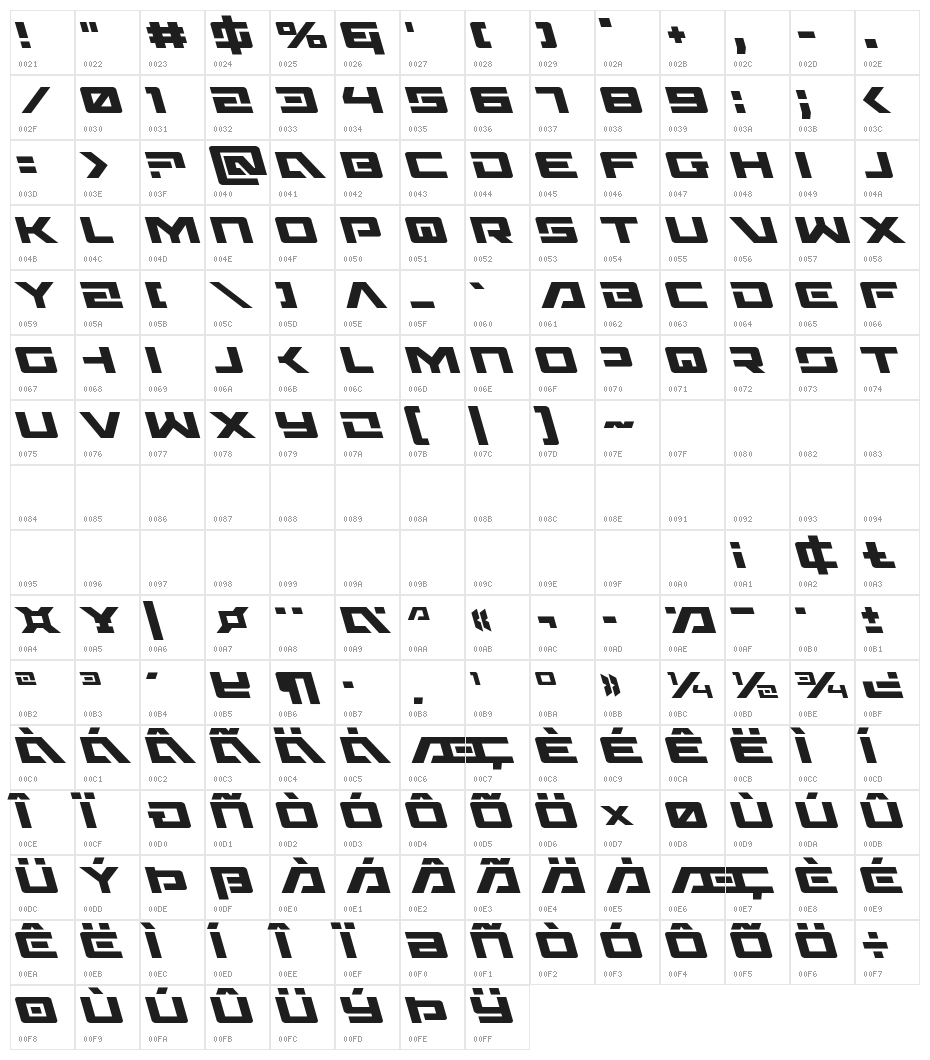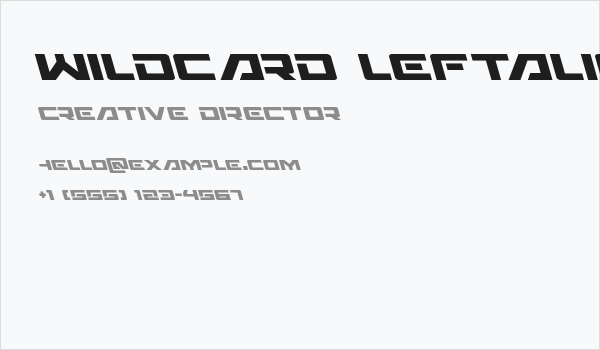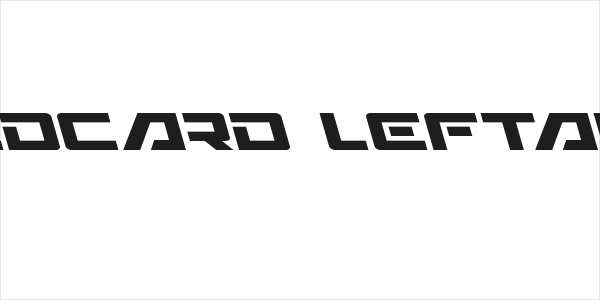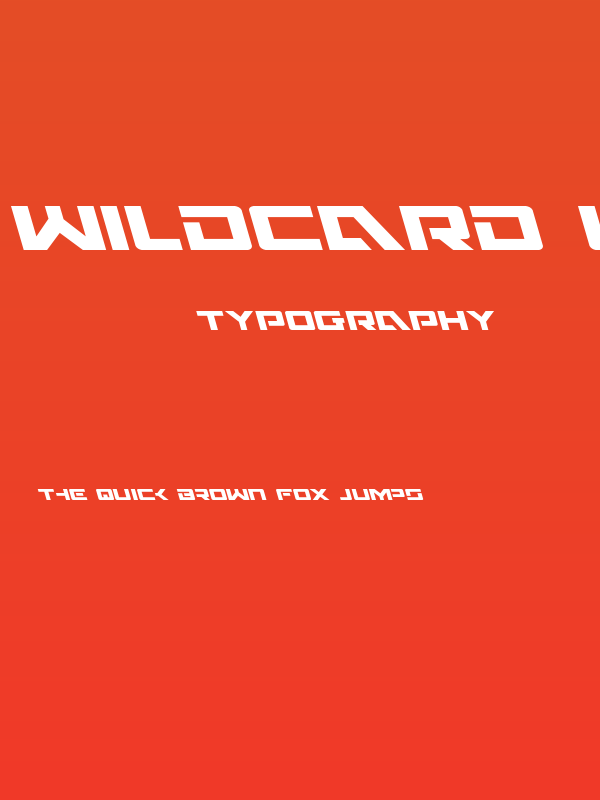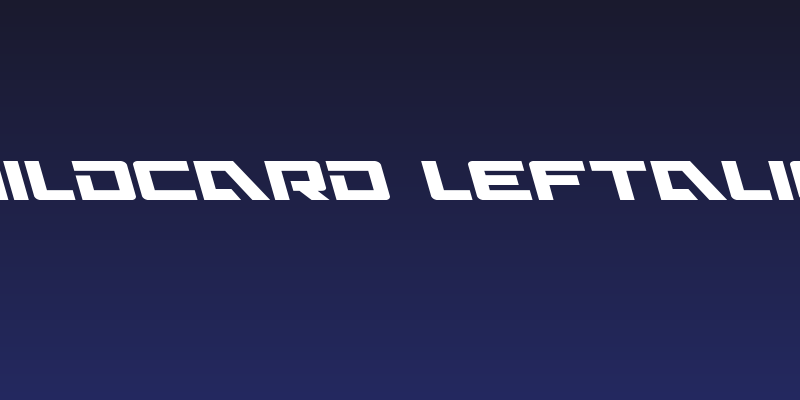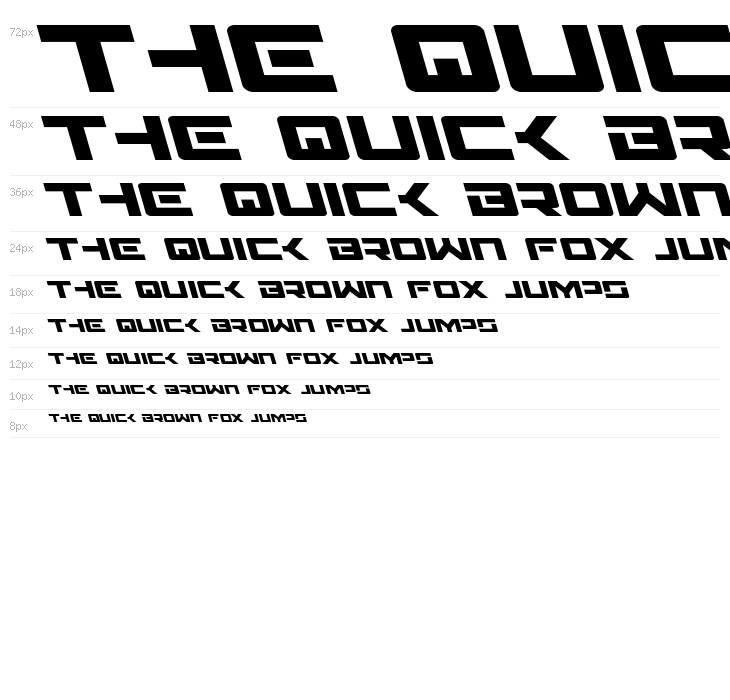
Wildcard Leftalic Font
Wildcard Leftalic Description
This font features a bold, angular design with a futuristic aesthetic. The characters are constructed with sharp, geometric lines and a consistent slant, giving them a dynamic and forward-moving appearance. The uppercase and lowercase letters maintain a uniform style, with the lowercase slightly smaller but equally bold. Numbers and special characters are designed to match the overall angular theme, ensuring visual consistency across all glyphs. The font's distinct style makes it ideal for projects that require a modern and edgy look.
| Proposed Projects | Ideal for sci-fi themed projects, video game titles, tech branding, and modern posters. |